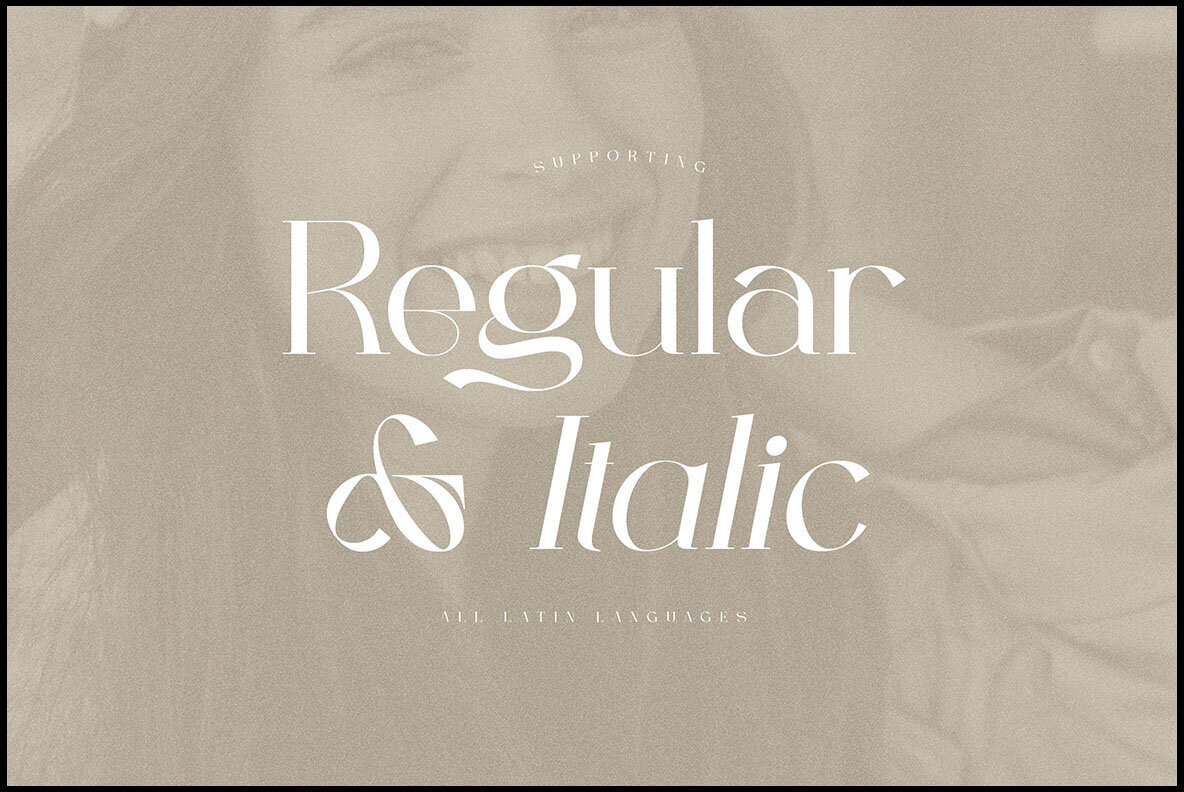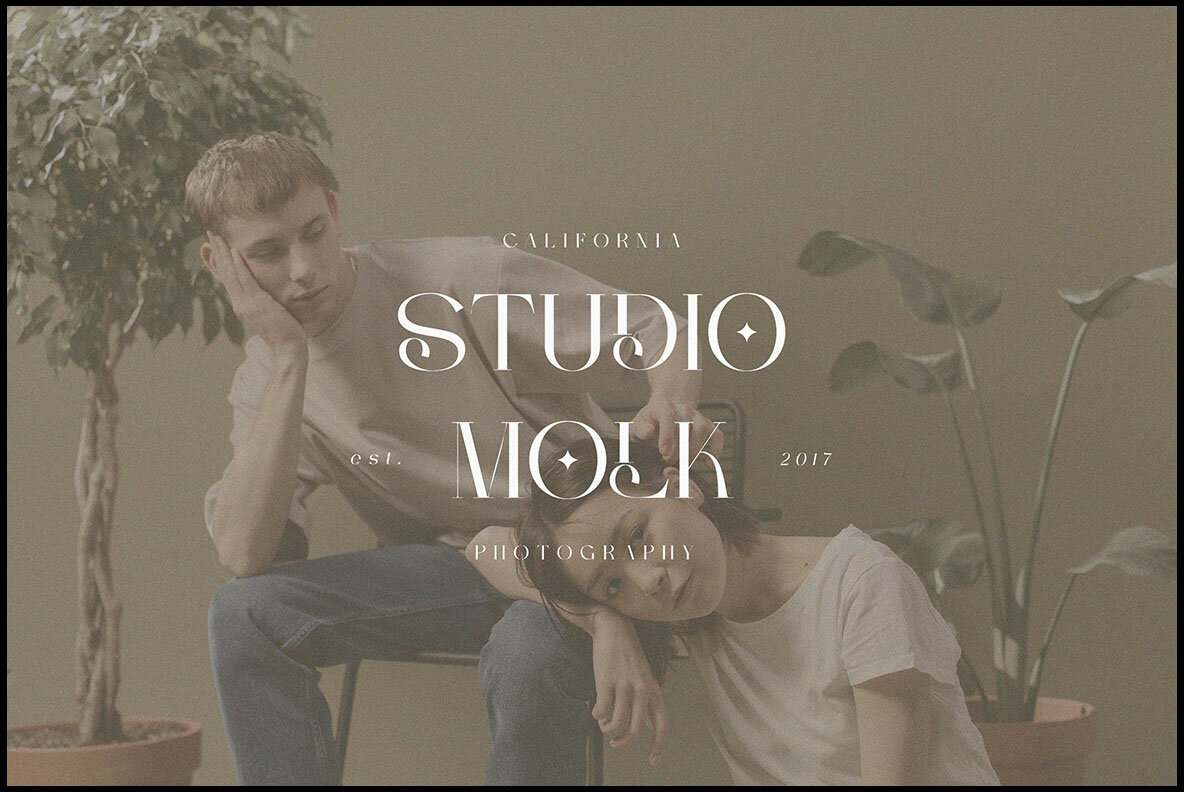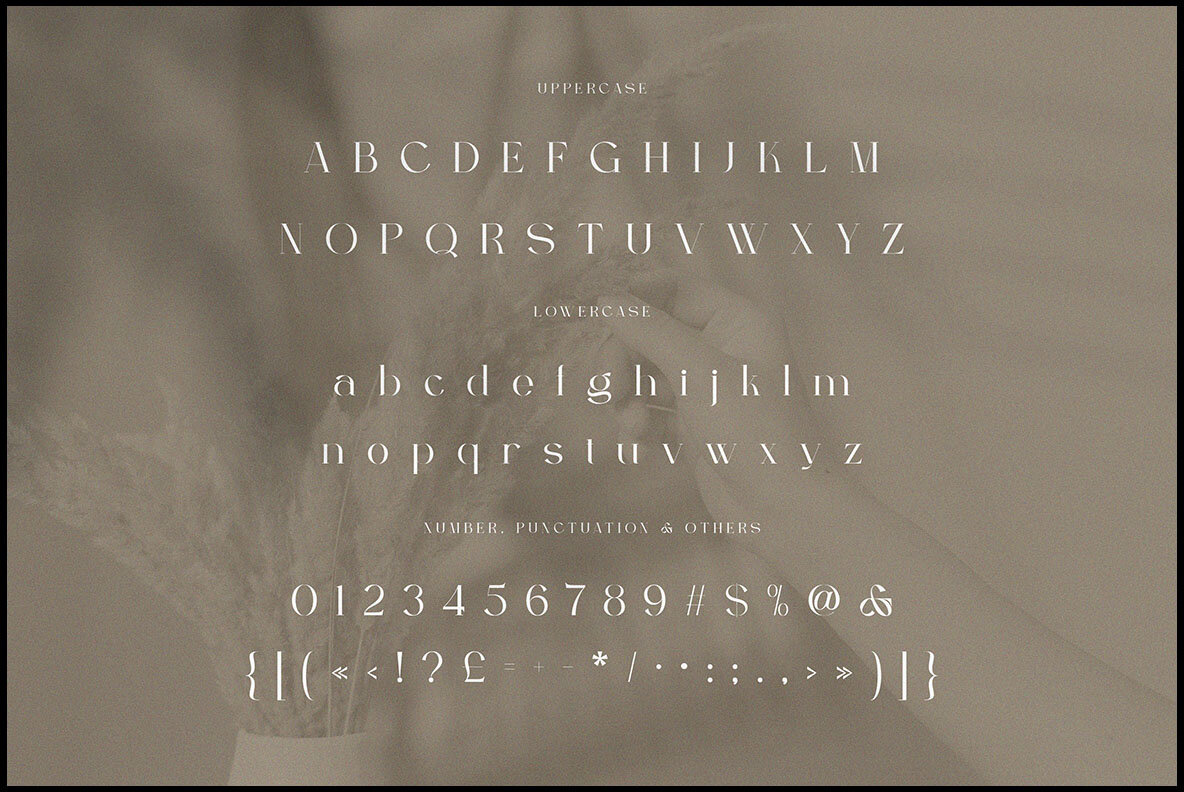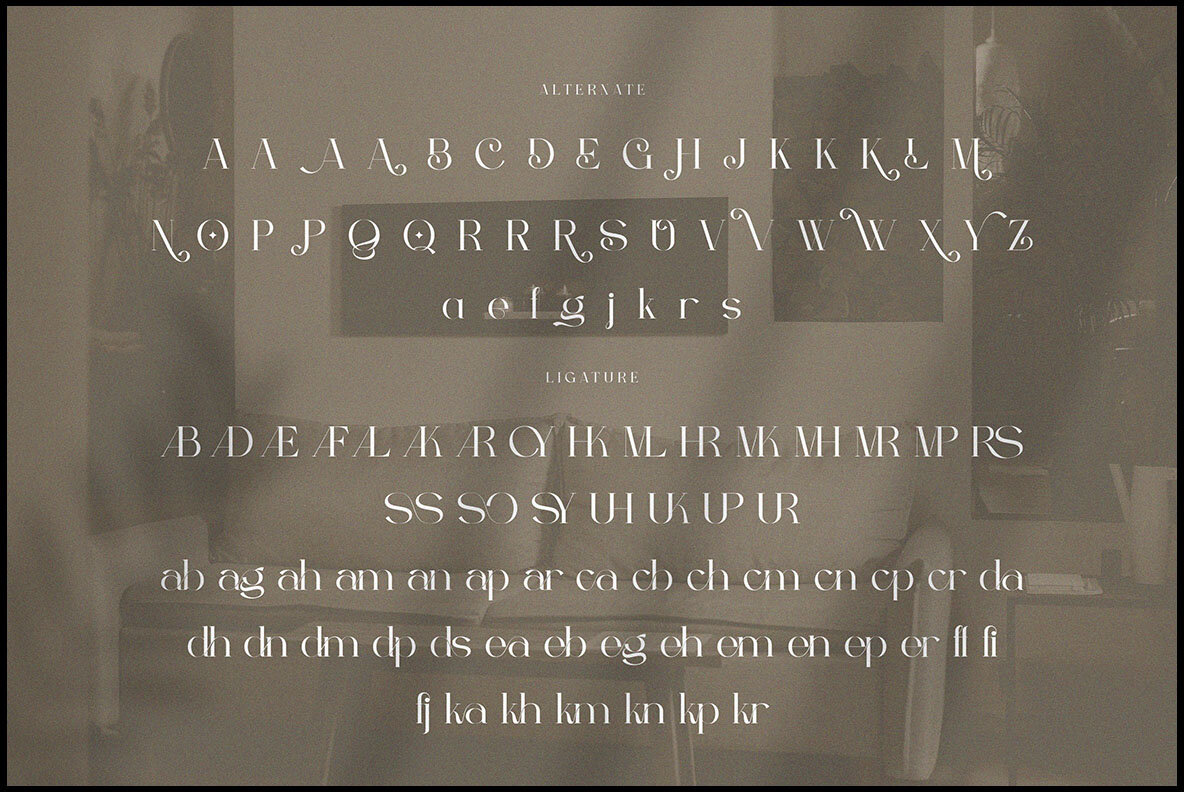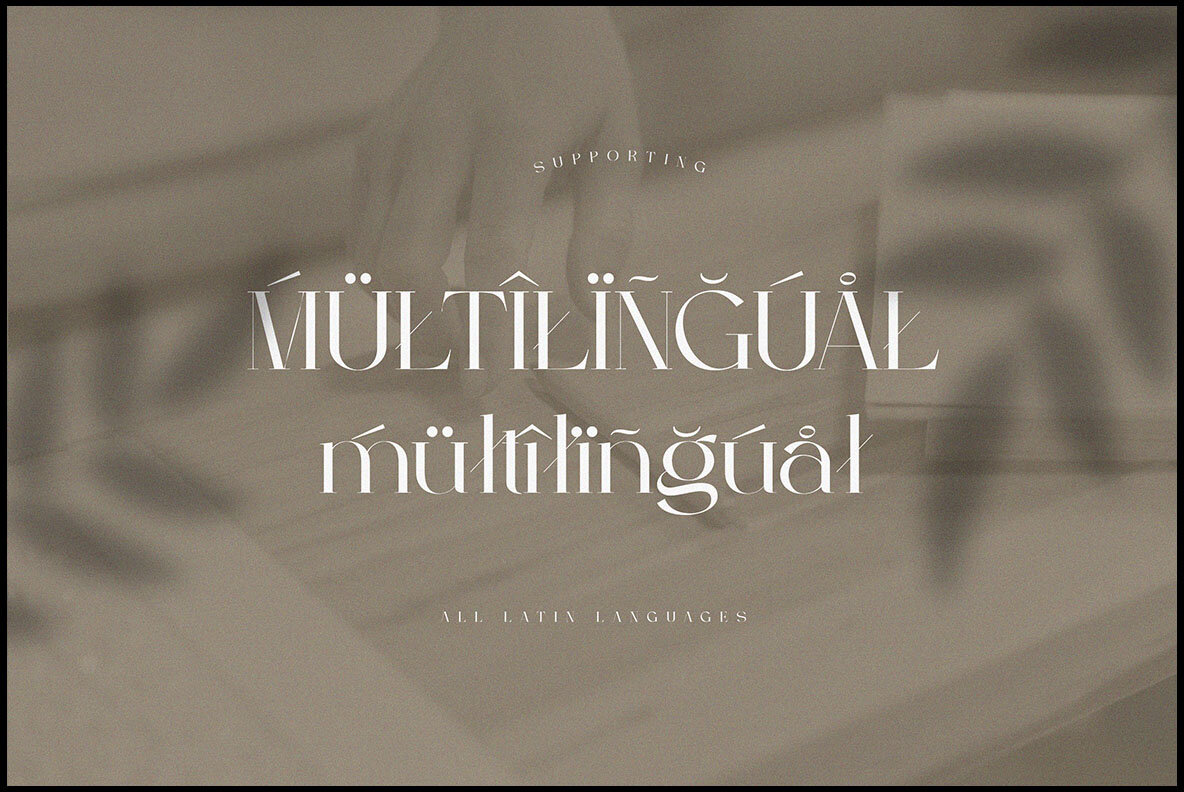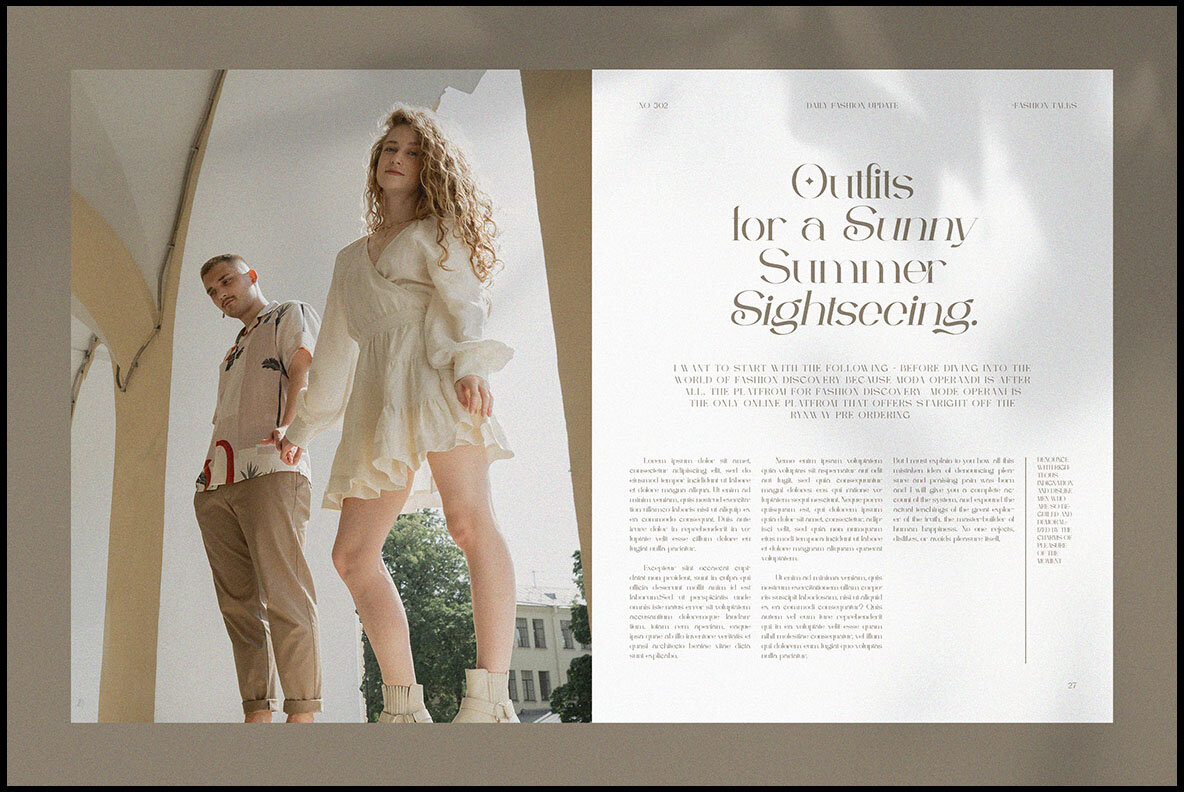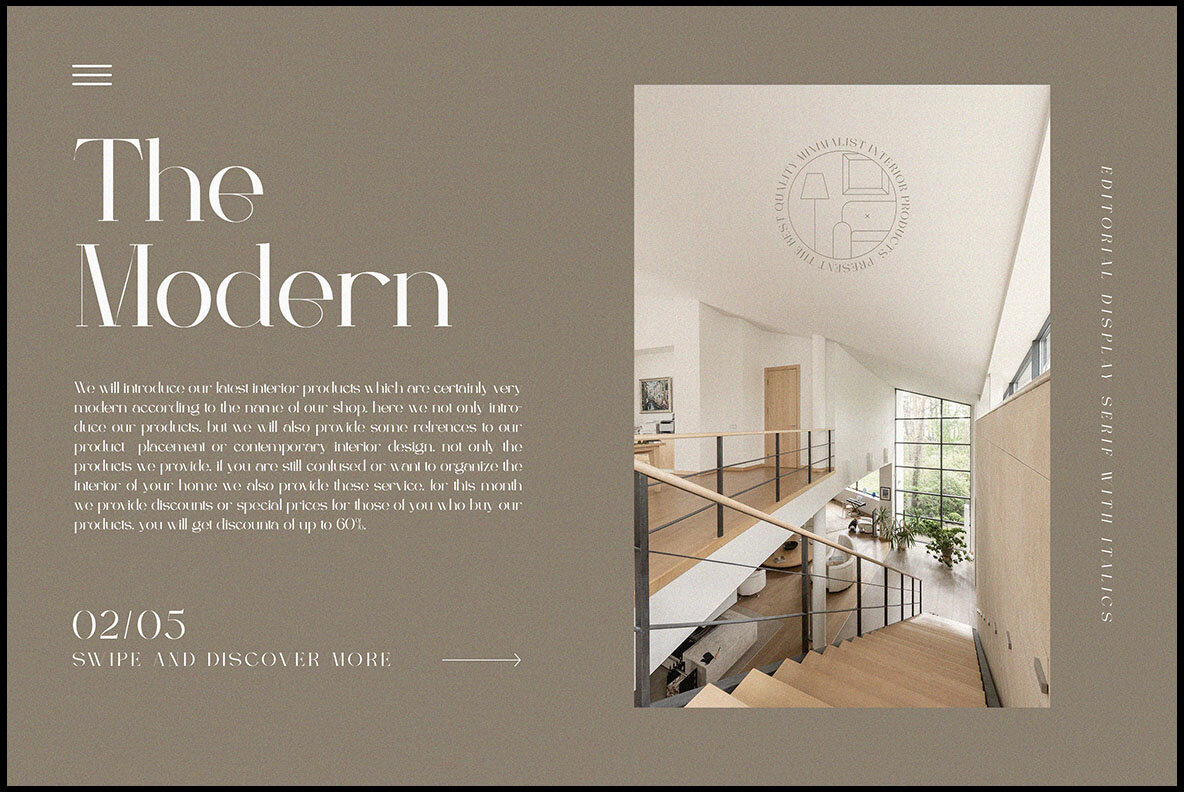
Berfilem Font
Berfilem Regular
Berfilem is a refined and artistic serif font, offering a luxurious blend of modern and stylish design. Perfect for projects that demand a touch of elegance and sophistication, this font is particularly suited for branding and editorial applications. With its array of alternates and ligatures, Berfilem facilitates the creation of unique and original designs, whether for logos or website headers.Berfilem: A Trendy and Elegant Serif Font